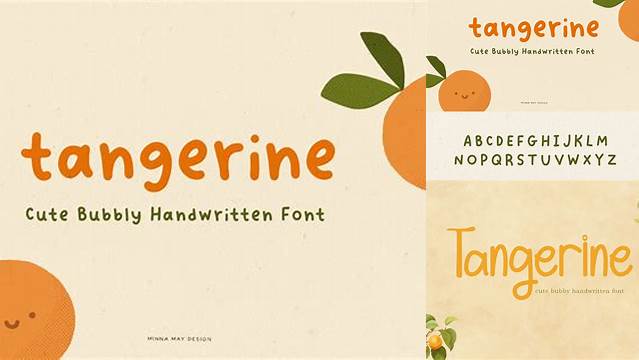
Let's dive into the world of fonts, guys! Specifically, we're talking about the Tangerine Cute Font – and yes, you can download it for free! This font is like a burst of sunshine for your designs, adding a touch of whimsy and charm that's hard to resist. Whether you're working on a school project, sprucing up your blog, or creating eye-catching marketing materials, the Tangerine Cute Font can be your secret weapon. Let's explore everything you need to know about this delightful typeface and how to get your hands on it.
What Makes Tangerine Cute Font So Special?
Tangerine Cute Font isn't just another pretty face; it's got character! It's designed with a playful, hand-lettered feel that makes it incredibly versatile. Its rounded edges and friendly curves give it a warm and approachable vibe, perfect for projects that need a touch of personality. The font is highly legible, making it suitable for both headlines and body text. Plus, its unique design sets it apart from generic fonts, helping your work stand out.
Font Design and Characteristics
The beauty of the Tangerine Cute Font lies in its simplicity and charm. The designers have carefully crafted each letter to exude a sense of fun and approachability. The rounded terminals and gentle curves make it incredibly pleasing to the eye. It’s not overly stylized, which means it’s versatile enough to be used in various design contexts. Whether you're creating a children's book, designing a website, or crafting social media graphics, this font adds a touch of warmth and personality.
Think about the overall impact of a well-chosen font. It's not just about readability; it's about conveying a mood, setting a tone, and creating an emotional connection with your audience. The Tangerine Cute Font excels in this regard. It’s perfect for projects that aim to evoke feelings of happiness, playfulness, and warmth. It works exceptionally well in designs targeting children, young adults, or anyone who appreciates a light-hearted touch.
Furthermore, the font's characteristics make it suitable for both digital and print media. In digital designs, its clarity ensures that it remains legible even on smaller screens. In print, its smooth lines translate beautifully, making it ideal for invitations, posters, and packaging. Its adaptability is one of its greatest strengths, allowing you to use it across a wide range of projects without losing its unique charm.
Why Choose a Cute Font?
Choosing the right font can make or break a design. A cute font like Tangerine can inject personality and warmth into your project. It's perfect for designs aimed at children, creative projects, or anything that needs a friendly touch. Cute fonts often have rounded edges, playful curves, and a generally approachable feel, making them incredibly appealing.
Cute fonts, like Tangerine, are particularly effective in branding and marketing materials. They help to create a brand identity that is perceived as friendly, approachable, and trustworthy. This can be especially beneficial for businesses targeting families or young adults. A well-chosen cute font can set the tone for your entire brand, conveying your values and personality in a subtle yet powerful way.
Moreover, cute fonts can also enhance the readability of your text. While some fonts may look stylish, they can be challenging to read, especially in smaller sizes. Cute fonts, on the other hand, often prioritize clarity and legibility, making them ideal for both headlines and body text. This is especially important for websites and digital content, where readability is crucial for user engagement.
The emotional impact of a cute font should not be underestimated. When people see a font that evokes feelings of happiness and playfulness, they are more likely to engage with the content and form a positive association with the brand. This can lead to increased brand loyalty and customer satisfaction. In short, choosing a cute font is a strategic decision that can have a significant impact on the success of your design projects.
Tangerine Cute Font vs. Other Fonts
What sets Tangerine Cute Font apart from other fonts? Well, it's all about its unique blend of cuteness and readability. While some fonts might be overly stylized or difficult to read, Tangerine strikes a perfect balance. It has a hand-lettered feel that adds a personal touch, but it's still clear and easy to read, even in smaller sizes. This makes it a versatile choice for a wide range of projects, from logos and branding to social media graphics and website headers.
When comparing Tangerine Cute Font to other fonts, it's essential to consider the specific needs of your project. For example, if you're looking for a formal and professional font, you might opt for a classic serif typeface like Times New Roman or Garamond. However, if you want to add a touch of personality and warmth to your design, Tangerine Cute Font is an excellent choice.
Conclusion: Unleash Your Creativity with Tangerine Cute Font